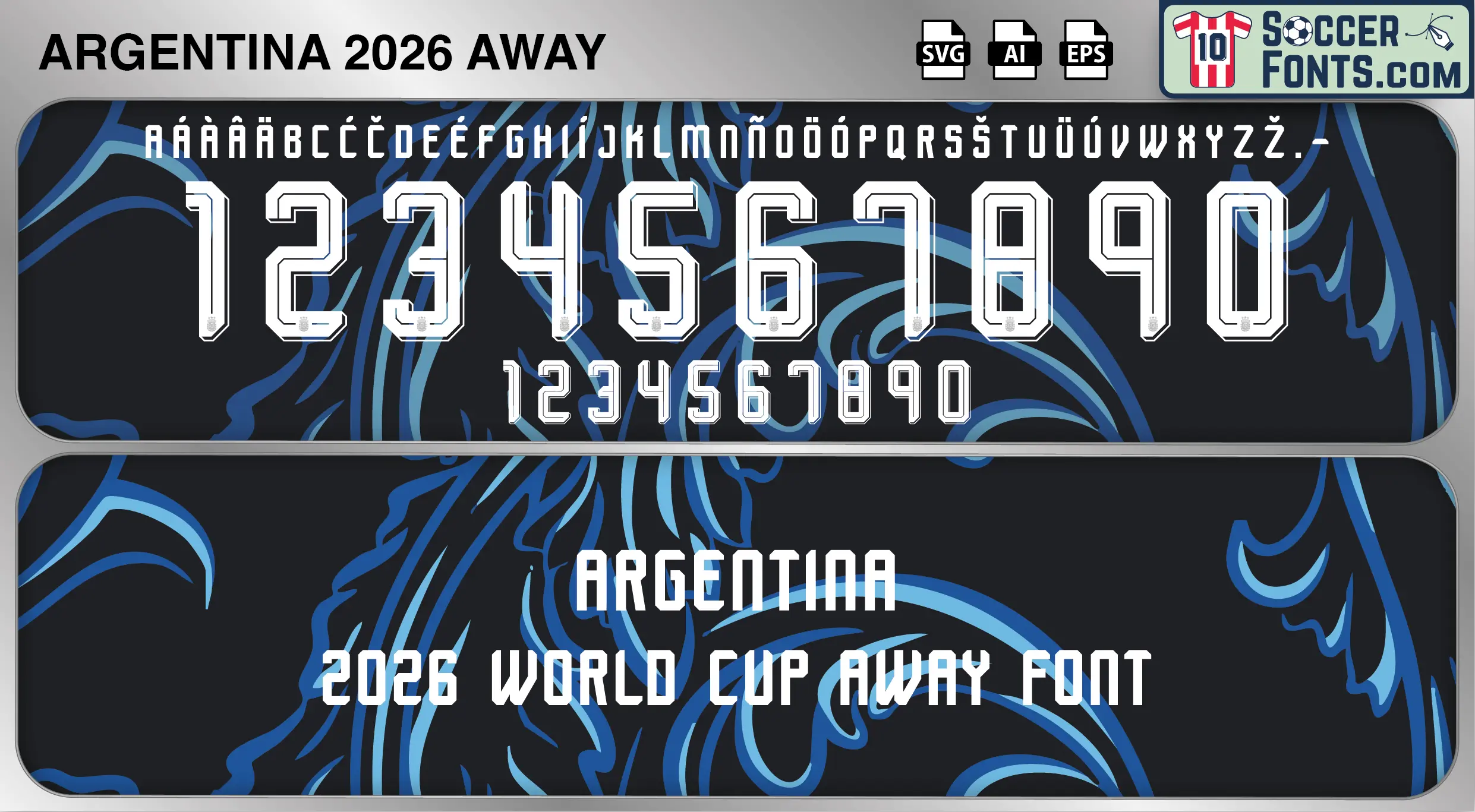
Argentina 2026 World Cup Font Away
The Argentina 2026 World Cup Font Away is an editable soccer jersey lettering design in vector format inspired by the Argentina away kit style used during the 2026 FIFA World Cup. This football font artwork is prepared for football shirt recreations, custom jersey projects, football kit mockups and sports graphic design workflows.
The 2026 FIFA World Cup marks another major milestone in Argentina’s football history as the national team competes on the global stage following an era of extraordinary international success. With a squad featuring established stars and emerging talents, Argentina entered the tournament carrying the prestige of one of football’s most successful and influential nations. The competition hosted in the United States, Canada and Mexico provides the backdrop for a new generation of World Cup stories while maintaining the strong connection between Argentina and international tournament football.
The Argentina 2026 World Cup Font Away is specifically linked to the typography used on Argentina’s away shirts during the tournament. For the 2026 World Cup cycle, Adidas introduced separate home and away lettering systems for selected national teams, creating distinct identities across different kit versions. The Argentina 2026 World Cup Font Away represents the official tournament-era font used alongside the national team’s away kit and forms part of a broader collection of World Cup typography resources. Argentina away shirts from this tournament are expected to become popular among football shirt collectors and designers looking to recreate authentic World Cup-era kit details with accurate lettering references.